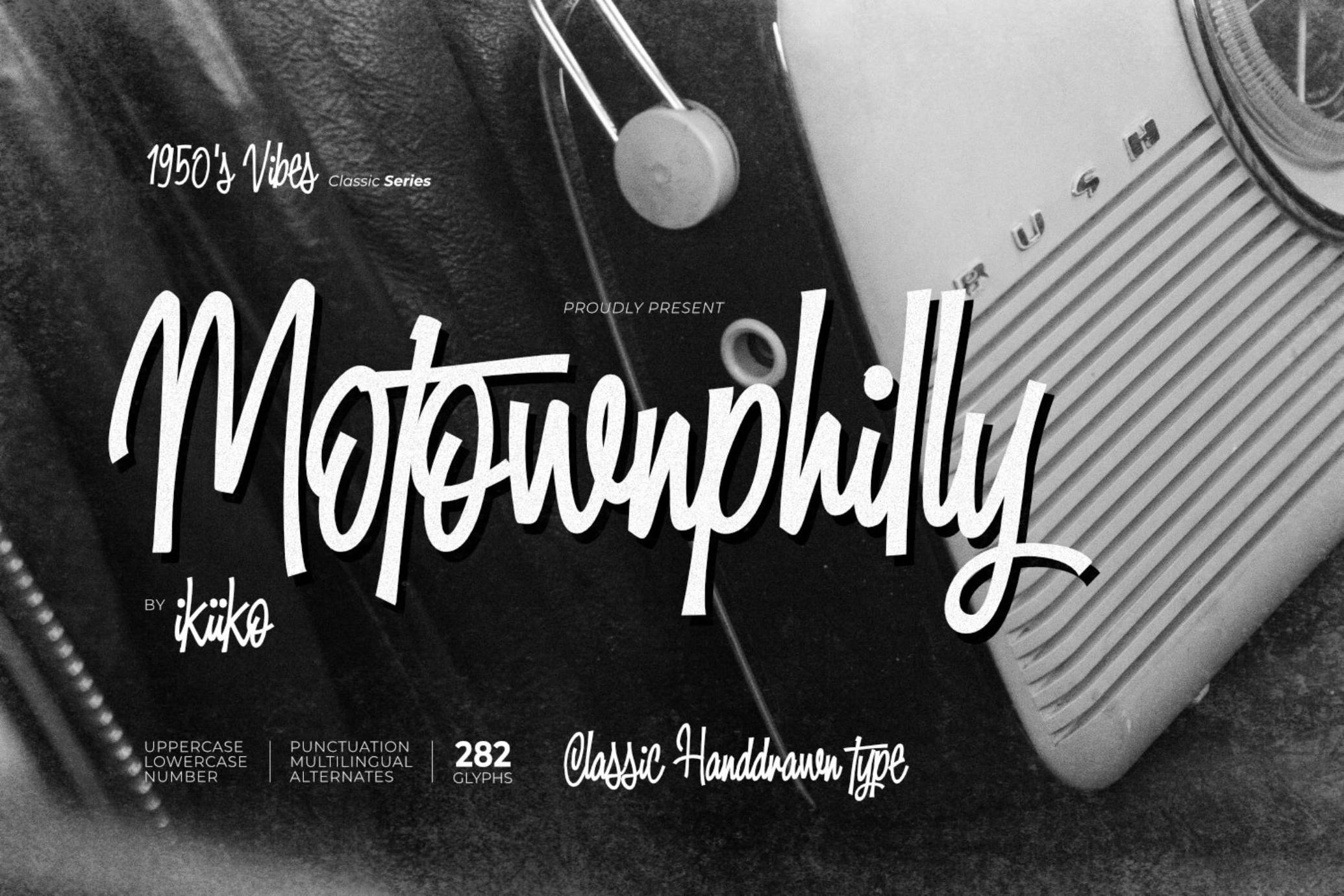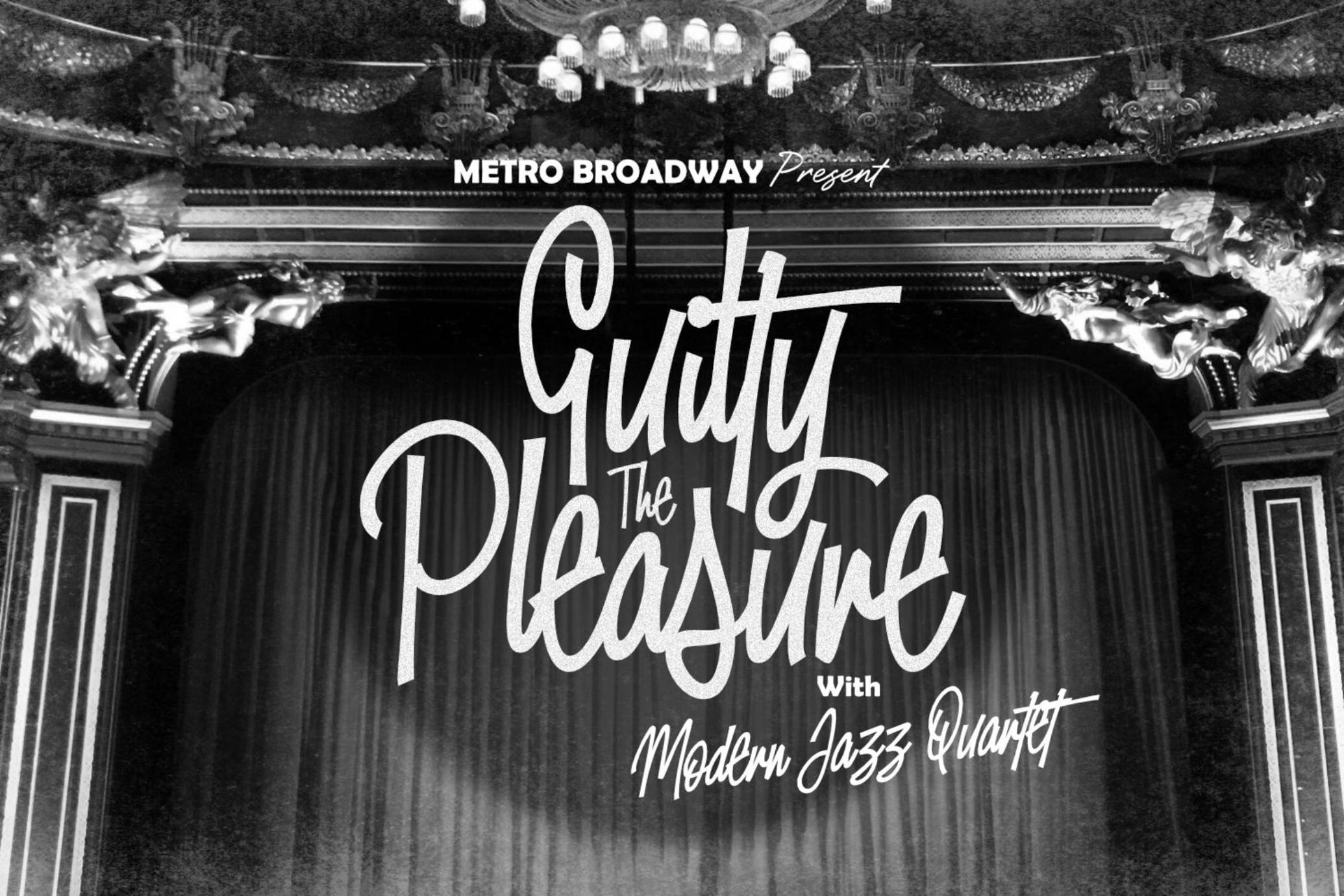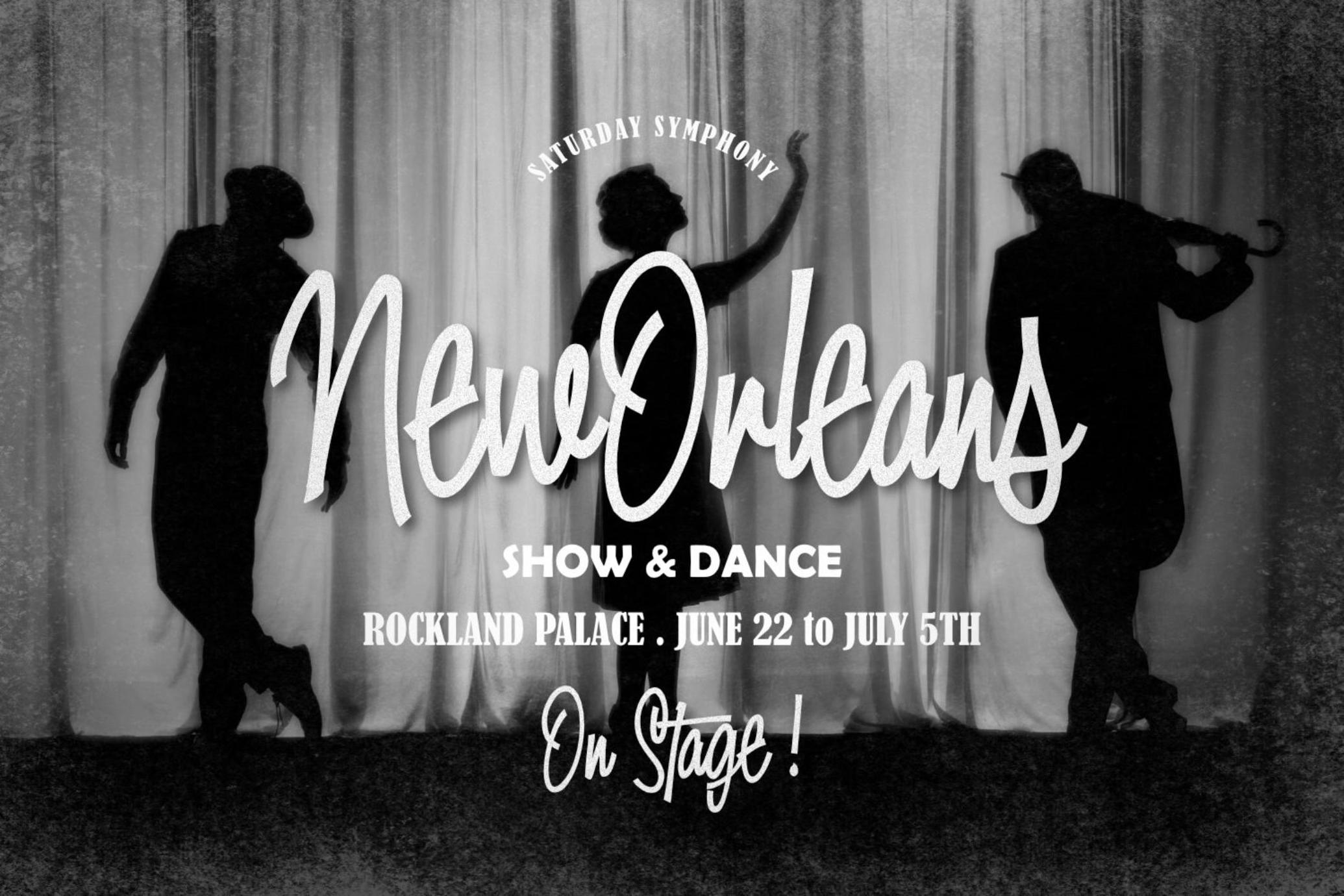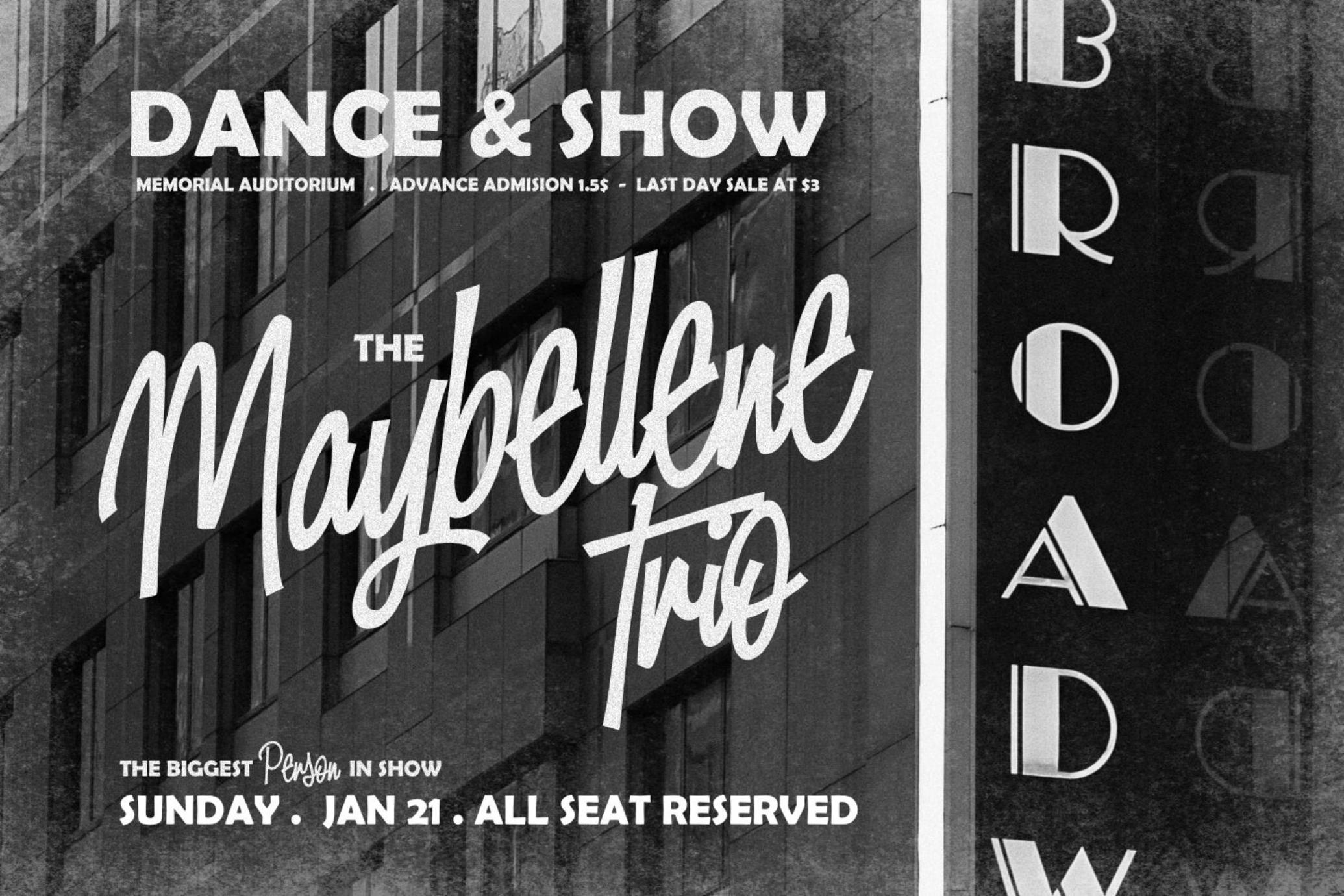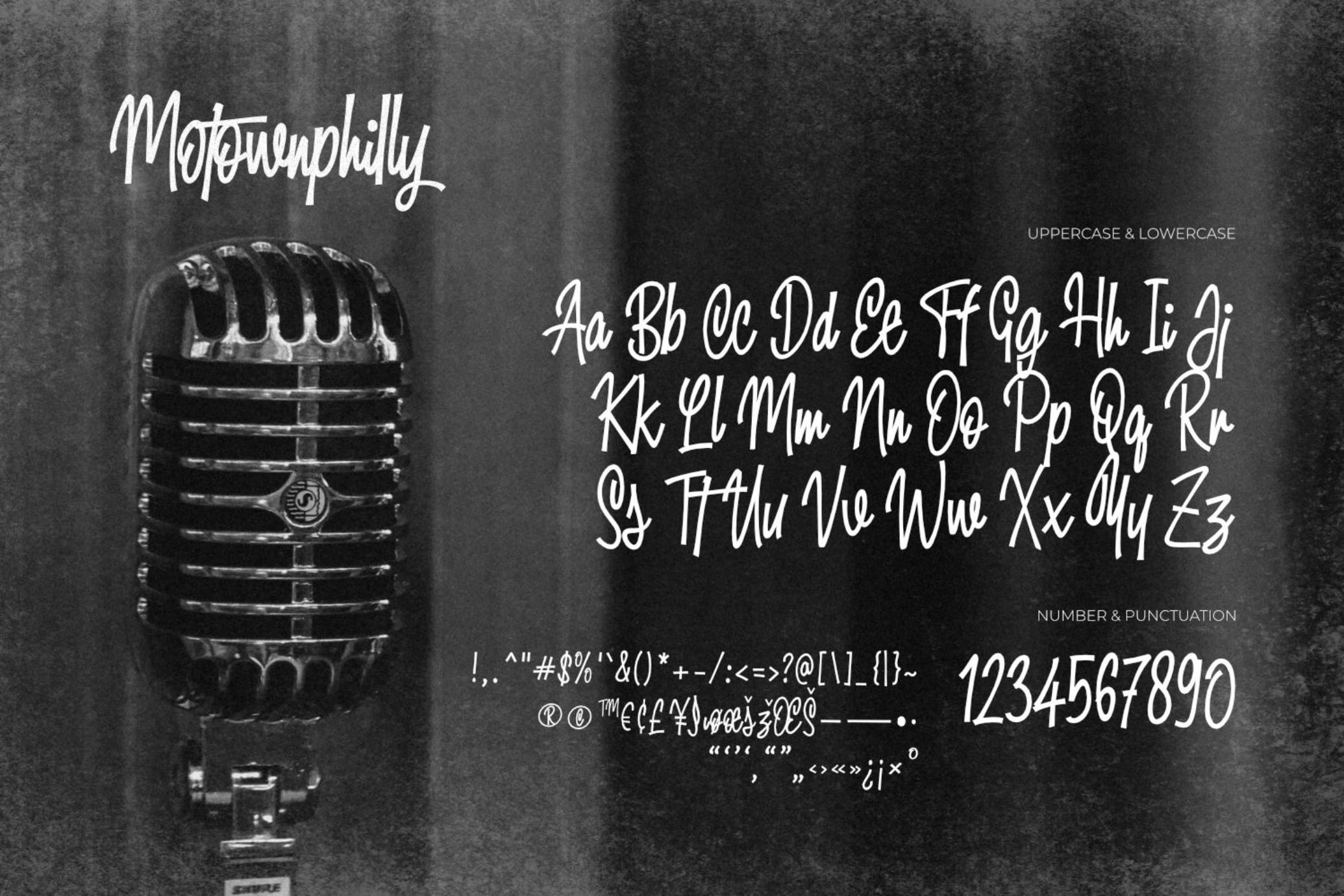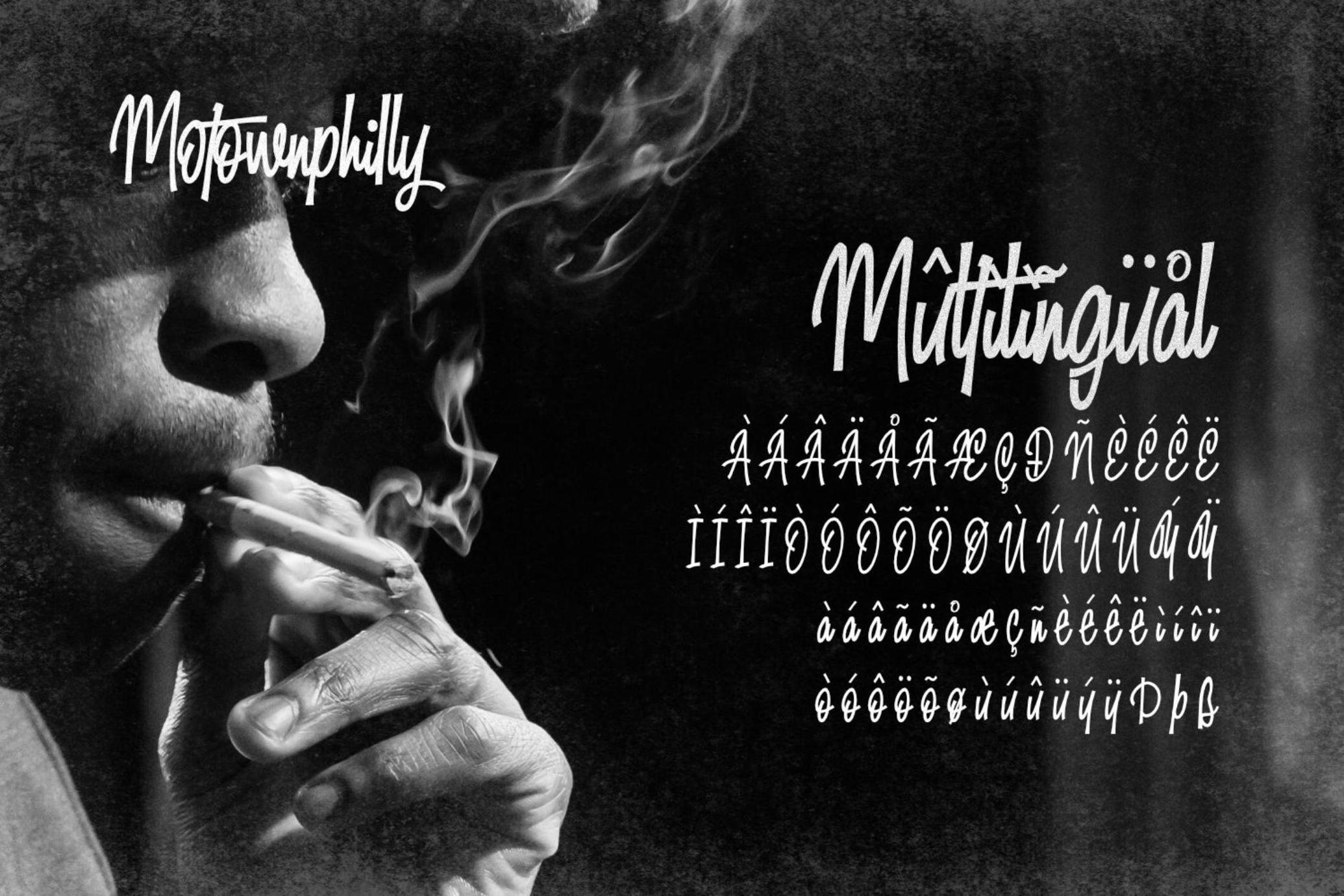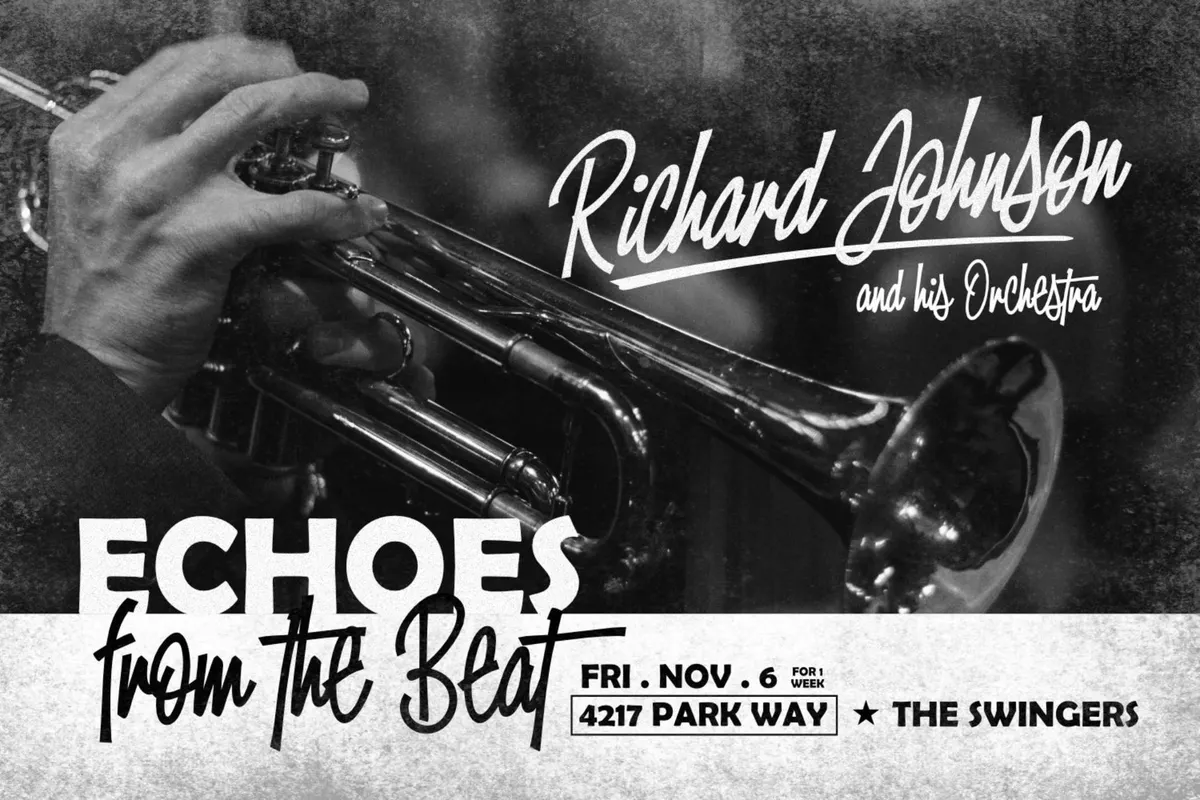
Motownphilly - Classic Handdrawn Font
Motownphilly is a handwritten script typeface inspired by the typography styles of Movie titles and the American Classic Show & Orchestra in 1950s. This typeface is designed to give the appearance of an expressive style. Motownphilly has bold, raw lettering lines, with wild strokes. A style commonly used in print ads, magazine, and sign advertisements of the era.
• Number & Punctuation
• Alternates